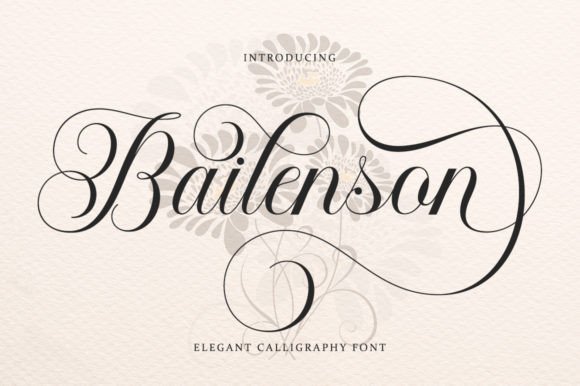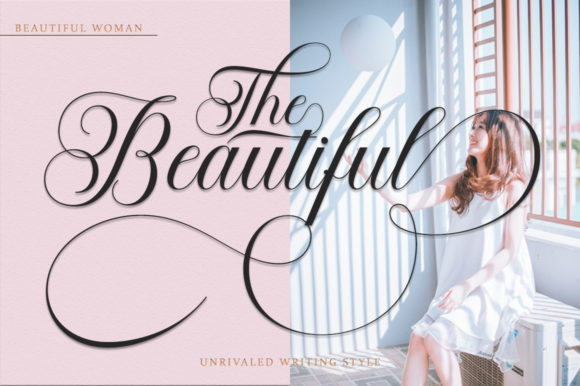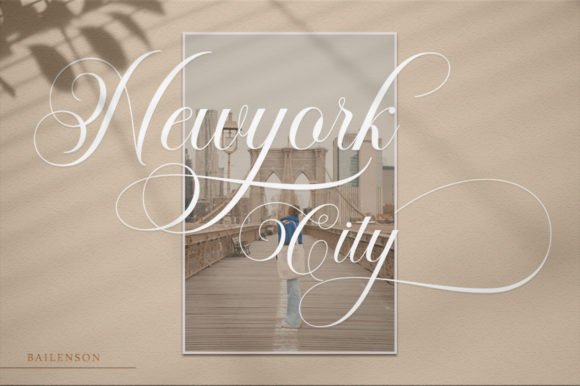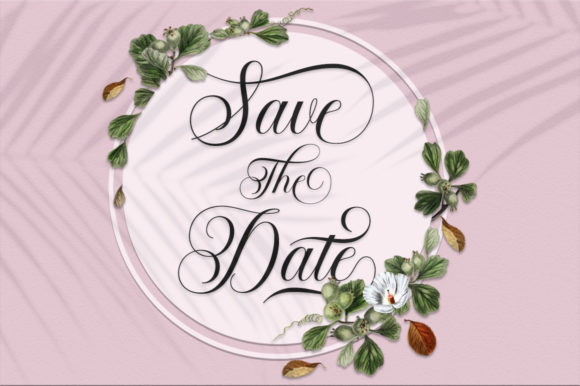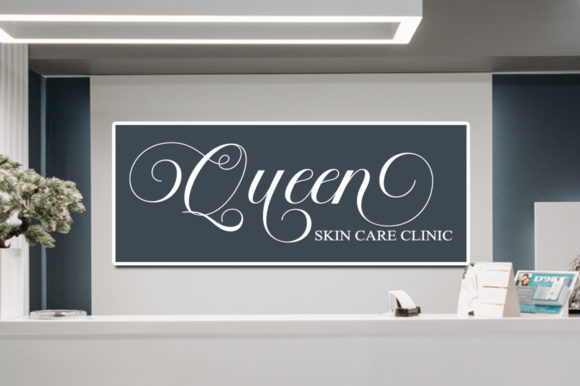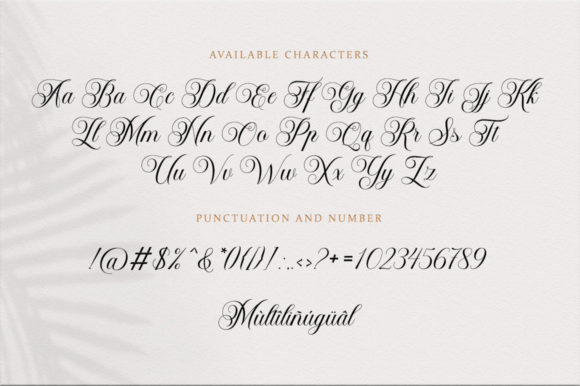
About Bailenson Font
“Bailenson” is presented as a calligraphic font with a classic style and an elegant touch. The font draws inspiration from Italian women’s handwriting and ancient manuscripts. It is crafted with a careful design to work harmoniously, making it suitable for a variety of applications, including wedding favors, book covers, greeting cards, logos, branding, business cards, certificates, and any design work that demands a classic, formal, or luxury aesthetic.
Key features and applications of “Bailenson” include:
1. **Classic Style and Elegance:** The font is described as having a classic style, suggesting timeless and enduring design elements. The added touch of elegance enhances its appeal, making it suitable for projects that require a refined and sophisticated look.
2. **Inspiration from Italian Women’s Handwriting:** The font’s design is influenced by the graceful handwriting of Italian women, giving it a cultural and artistic reference. This aspect adds a unique and distinctive character to the font.
3. **Versatility:** “Bailenson” is positioned as versatile, with applications ranging from wedding favors to book covers, greeting cards, logos, and more. This versatility makes it a practical choice for various design projects.
4. **Harmonious Design:** The font is carefully designed to work harmoniously. This suggests that its characters complement each other, contributing to a cohesive and aesthetically pleasing overall appearance. This quality is especially important in design projects where consistency is key.
5. **Suitability for Formal and Luxury Designs:** The font is indicated to be well-suited for formal and luxury design contexts. This makes it appropriate for projects that require a high level of sophistication and a touch of luxury.
For designers seeking a calligraphic font with classic and elegant qualities, “Bailenson” seems to offer a well-crafted option. Its inspiration from Italian women’s handwriting and versatility across various design applications make it a potentially valuable asset for projects requiring a timeless and refined aesthetic.